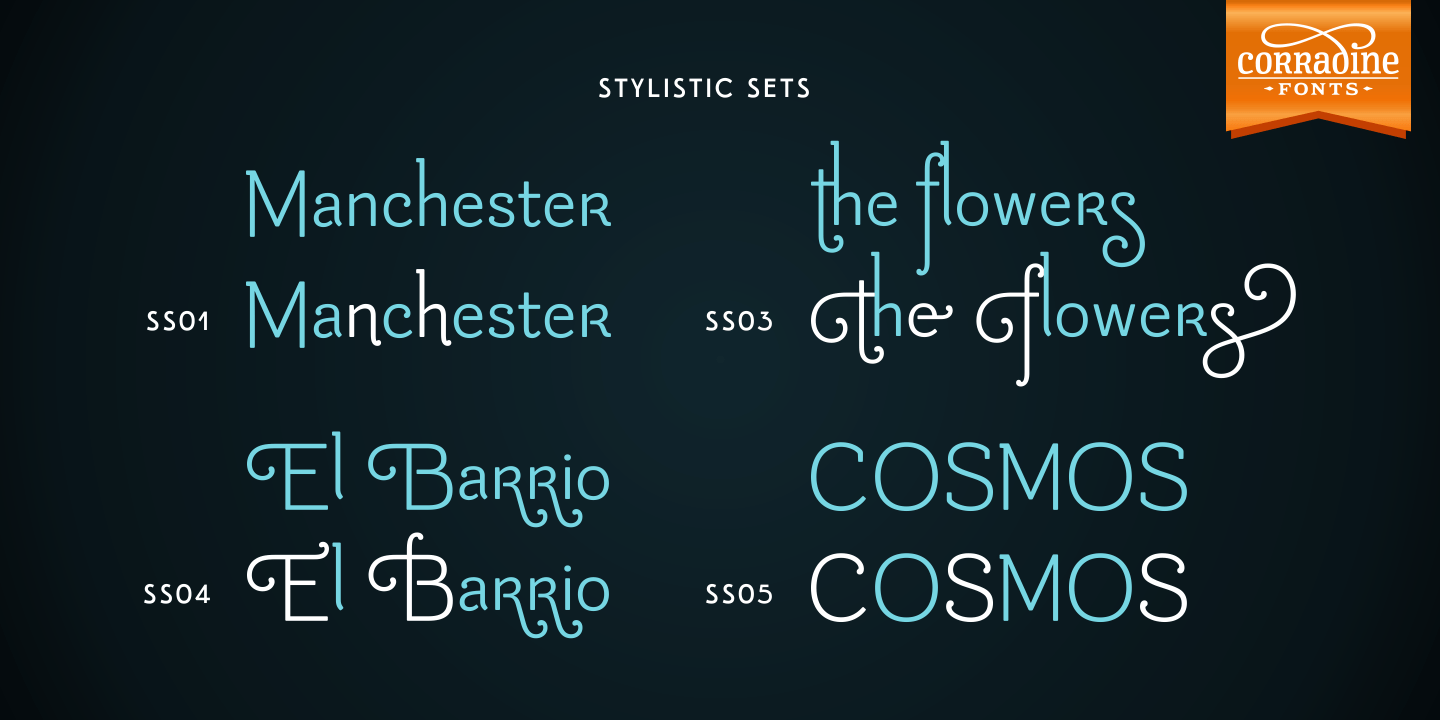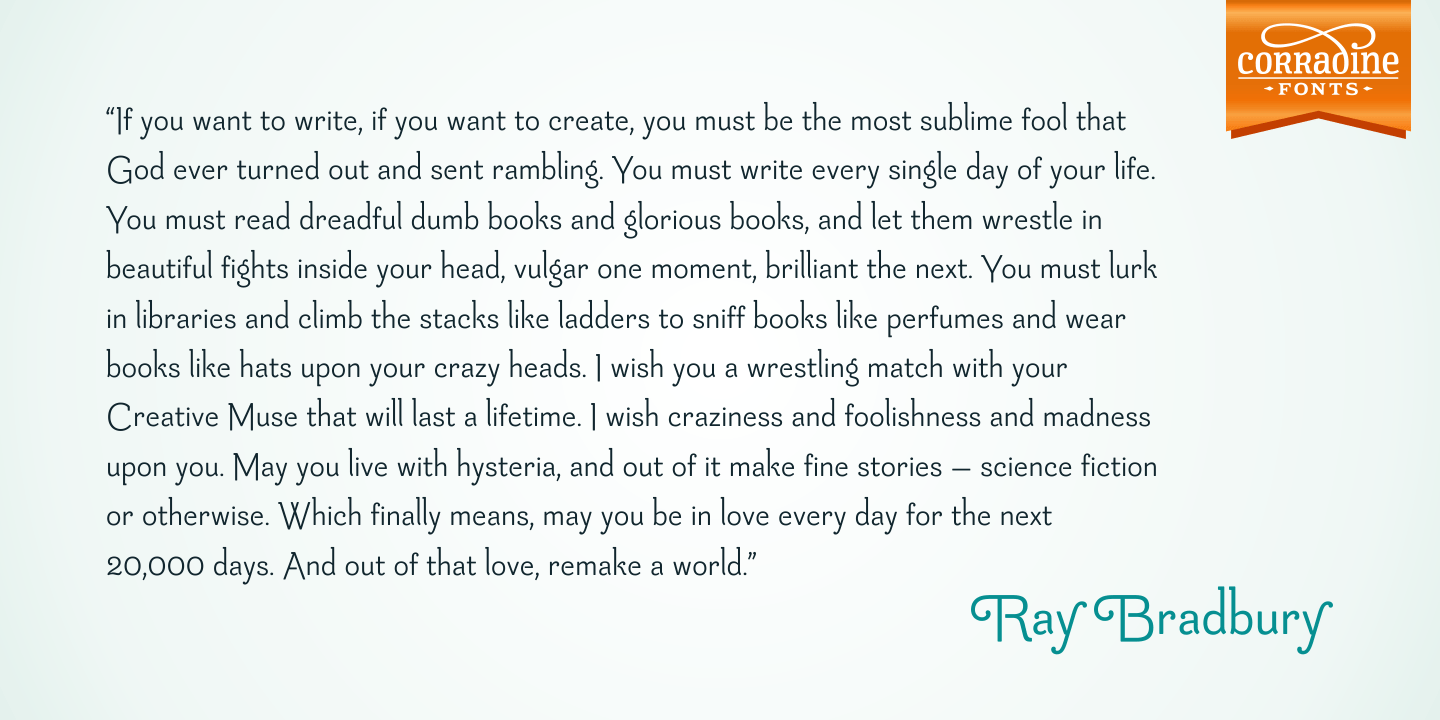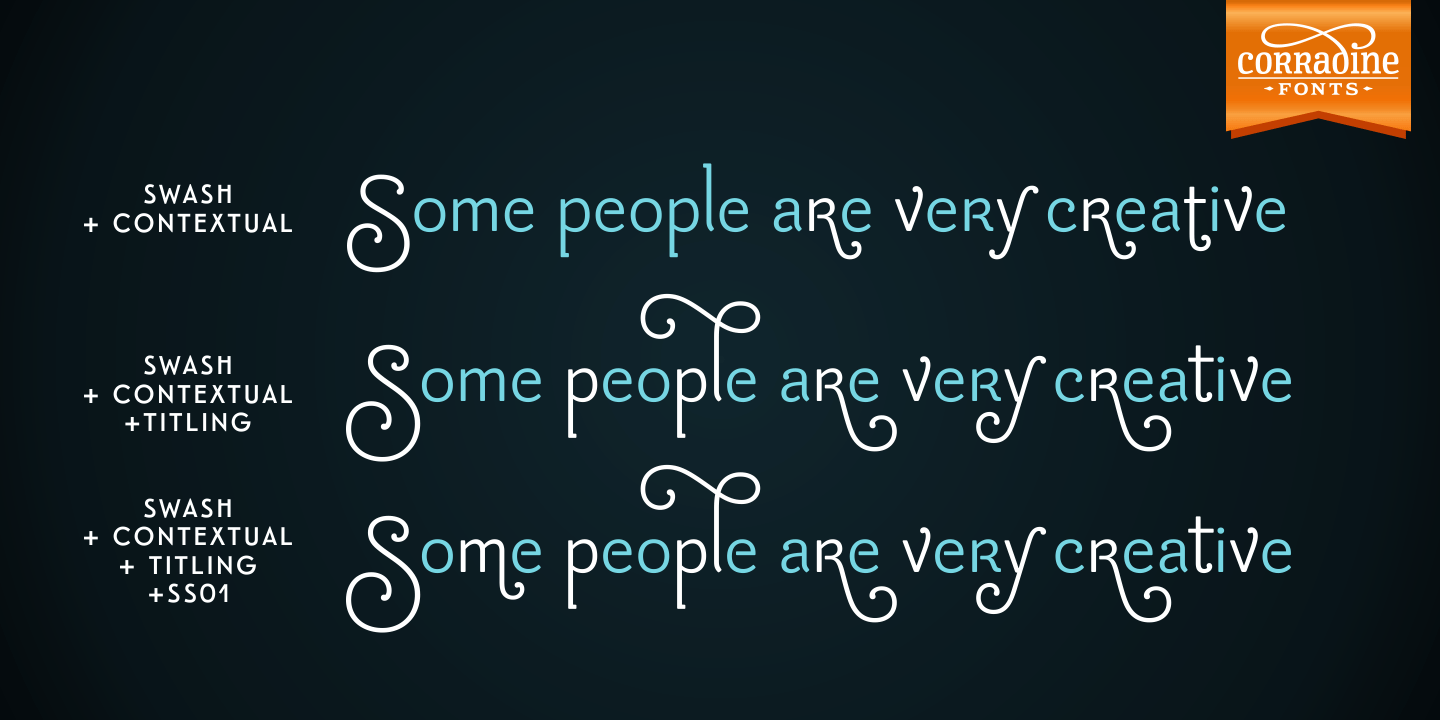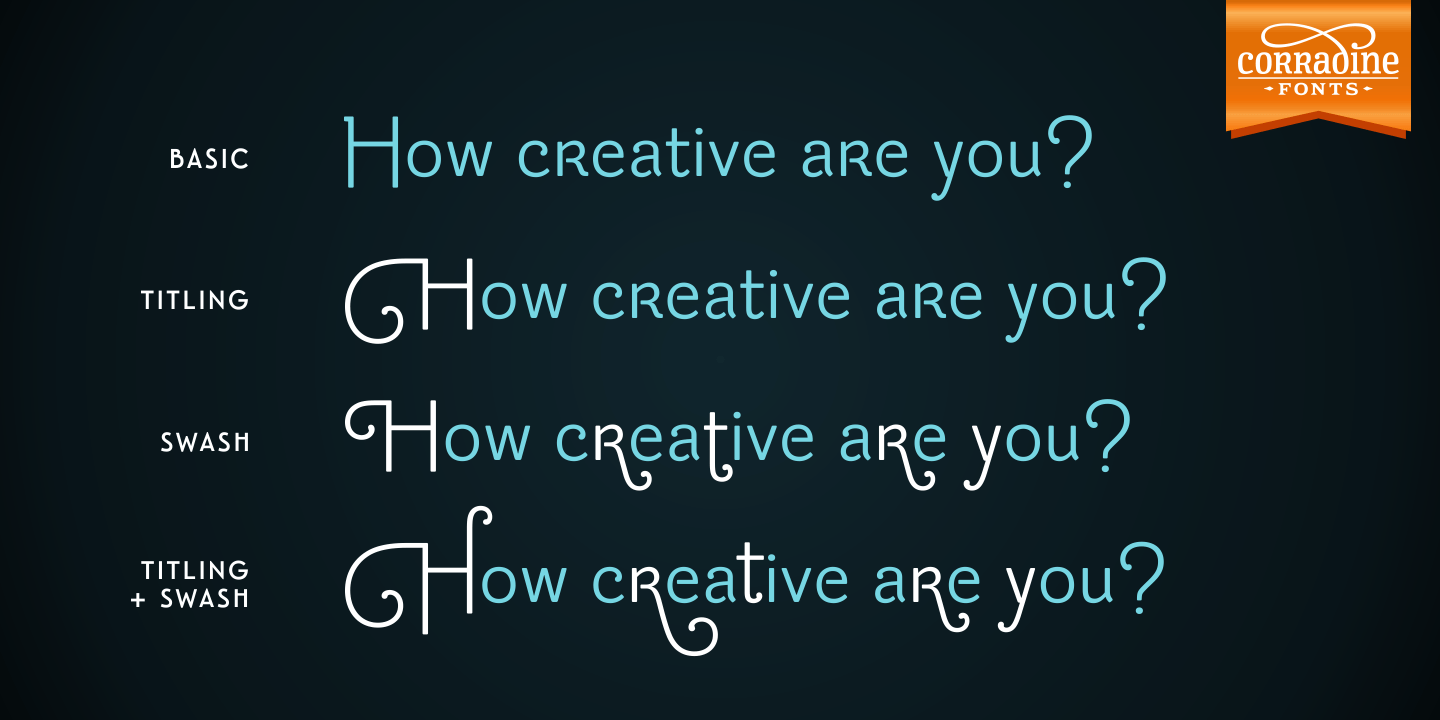
Based on the skeleton of the classic typeface from Corradine Fonts ?Mussica?, this softened semi-serif type family comes in eight useful weights and has many full functional Open Type features that allow you to play with the extension and type of the…